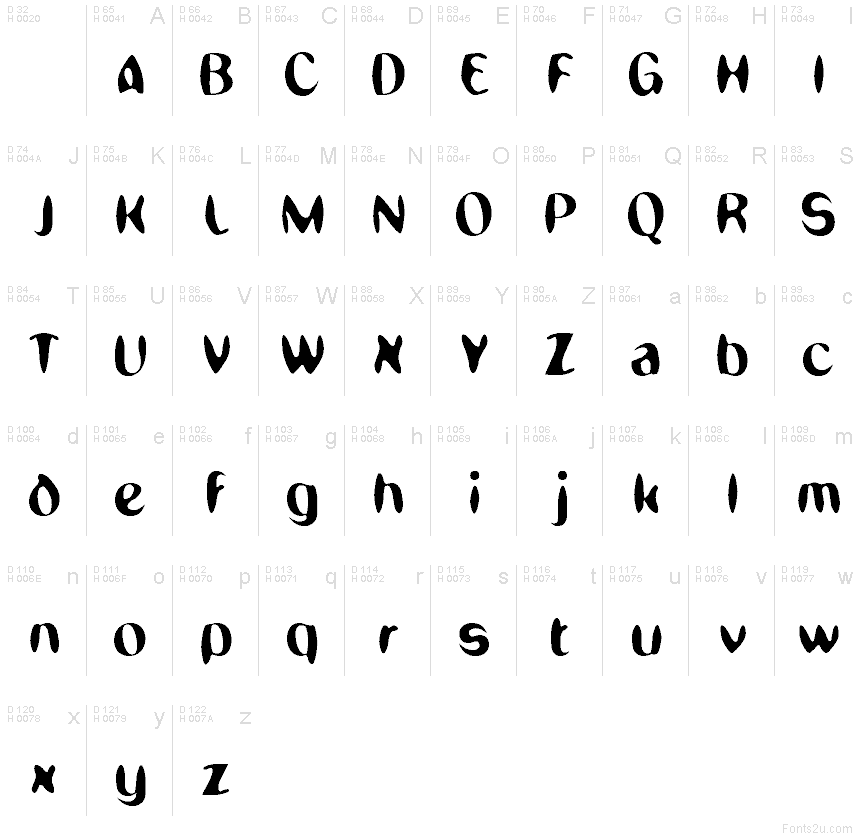
CSKaisonDrawn-Regular Demo
CS Kaison Drawn font by Craft Supply Co. is a free bold comic display font. Built in the CS Kaison family, it leans into juicy, hand-drawn shapes—thick, inky strokes with soft wobble and teardrop swells that feel scribbled rather than engineered. The letters bounce with an organic rhythm, big counters and blobby terminals catching light like wet brush paint, giving headlines a playful, tactile presence.
Using CS Kaison Drawn, you get instant personality that reads loud and friendly without shouting. It shines on kids’ book covers, snack packaging, festival posters, YouTube thumbnails, stickers, and café boards. Set it big with a touch of extra tracking, and pair with a simple rounded sans to keep the message clear while this free font does the smiling.